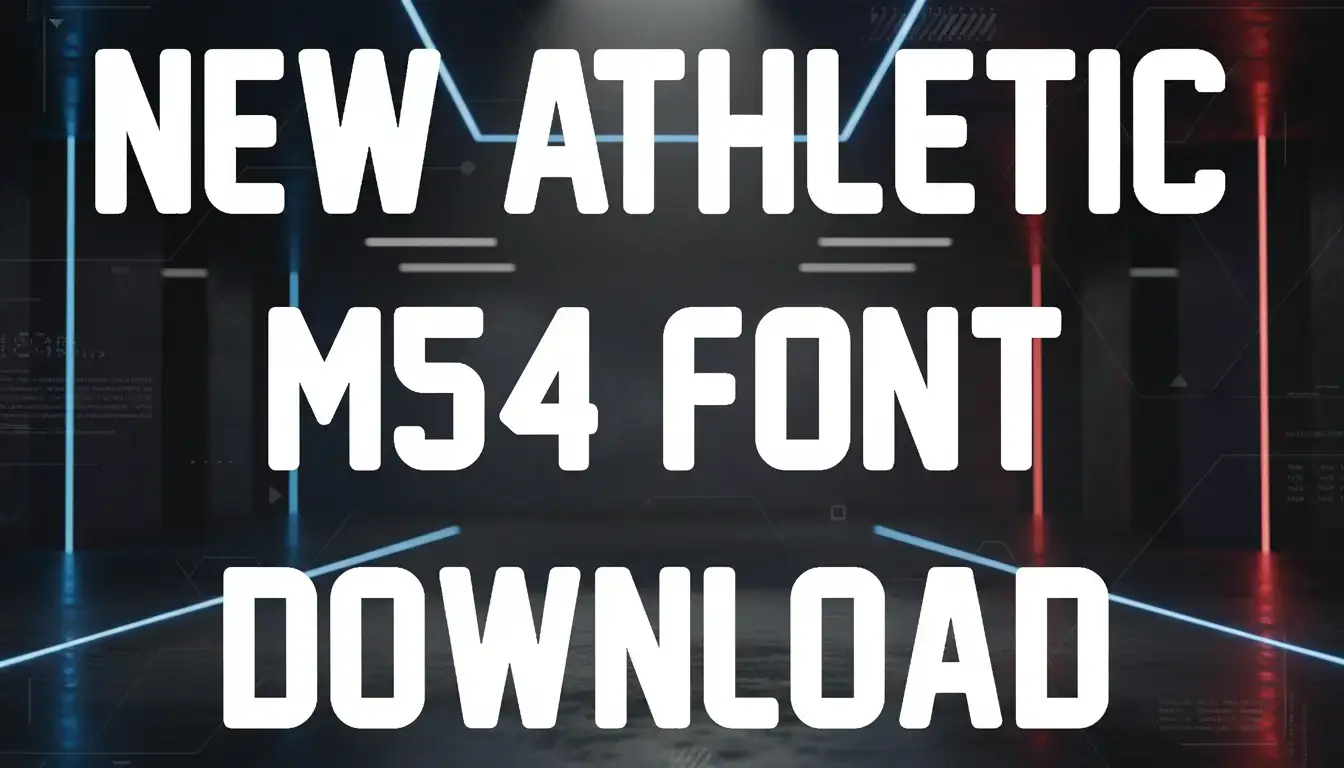
New Athletic M54 Font
New Athletic M54
New Athletic M54 is a fancy font designed by Mohammed Rahman and published by M54 (justme54s). It's a decorative display font with plenty of personality, made to grab attention. It's a free download, and you can try it with your own text in the preview above first.
What You Can Type With New Athletic M54
New Athletic M54 covers the full alphabet in upper and lowercase, plus all ten numbers, so you can set names, dates and prices without switching fonts. Common punctuation such as &, !, ? and @ is included as well. It doesn't include accented letters such as é or ñ, which makes it an English-only font.
Where New Athletic M54 Works Best
Think of New Athletic M54 for posters, logos and eye-catching headlines. Use it for one standout word or headline and let simpler fonts handle the rest.
Does New Athletic M54 support accented letters?
No. New Athletic M54 has no accented letters such as é, ñ or ü, so it's best for English text.